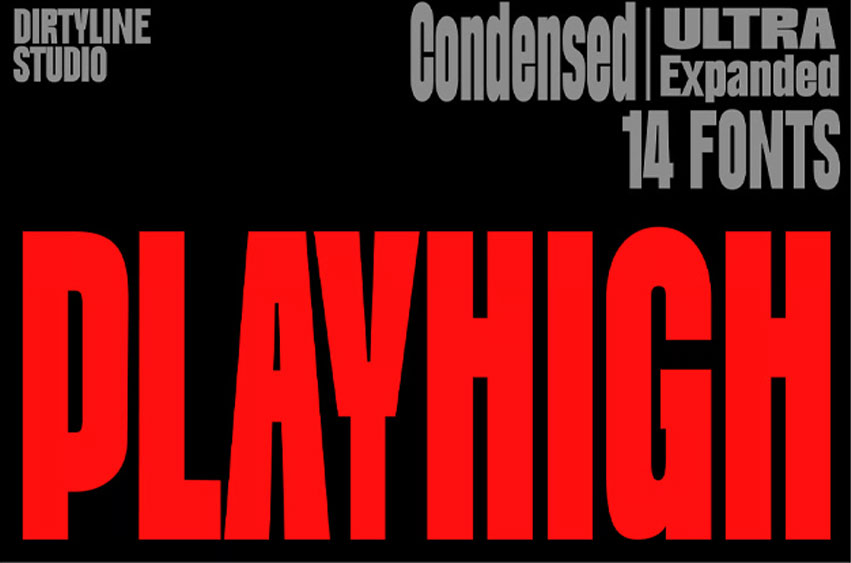
Playhigh Font is a bold and dynamic variable sans-serif display font designed to make a statement. Crafted by Dirtyline Studio, this font blends strength, versatility, and energy, perfect for designers who want their typography to stand tall and command attention.
With 14 styles ranging from Condensed to Ultra Expanded, DX Playhigh gives you total creative freedom. whether you’re designing bold headlines, impactful posters, expressive logos, or energetic branding materials.